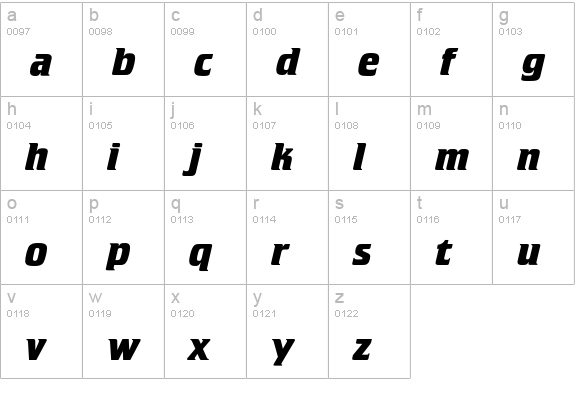
CrilleeEF-BoldItalic Font Details
CrilleeEF-BoldItalic is a bold and stylish font that exudes a sense of sophistication and elegance. Its italicized form adds a touch of flair and individuality to any design project. The sharp, clean lines of this typeface make it perfect for creating eye-catching headings, titles, and logos. The bold weight commands attention while the italic slant adds a dynamic and modern twist. What makes CrilleeEF-BoldItalic even more appealing is that it is available for free download at FontsMarket.com. This means that you can easily access this beautiful font and use it in your personal or commercial projects without any cost. Whether you're working on a branding campaign, website design, or print materials, CrilleeEF-BoldItalic is a versatile choice that will elevate your work to the next level. Download it today and unleash your creativity with this stunning typeface!